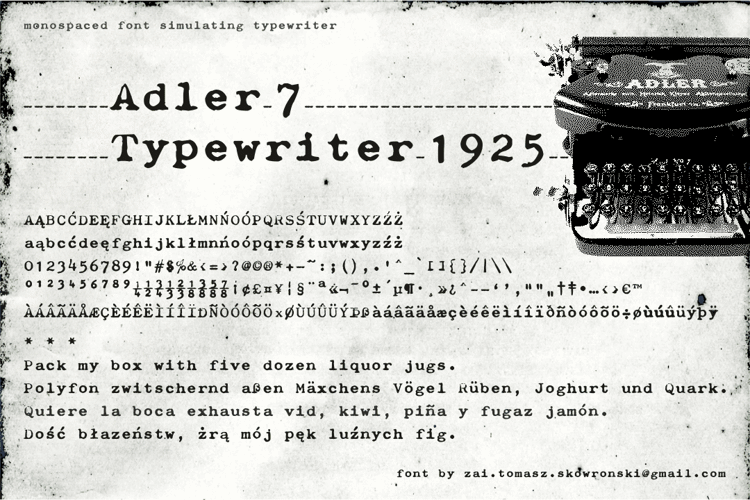
Adler7 Typewriter 1925 Font
About Adler7 Typewriter 1925 Font
Graphic designers loved this Adler 7 Typewriter 1925 font!
Does Hitler used this typeface in his Wolf's Lair bunker called Wolfsschanze?
Graficy są zachwyceni tym najnowszym fontem!
Czy Adolf Hitler używał tego kroju pisma w bunkrze Wilczy Szaniec?